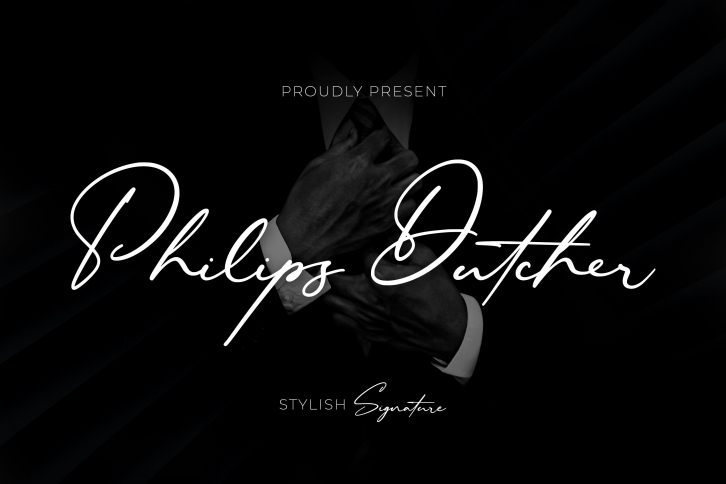
Philips Dutcher is a trendy and unique font with an authentic style. It was designed by Almarkhatype and it's a great choice for creative people who need such a font. It was released on March 17, 2021 and the file size is 16.69 MB. Philips Dutcher will add an organic vibe to any design idea!